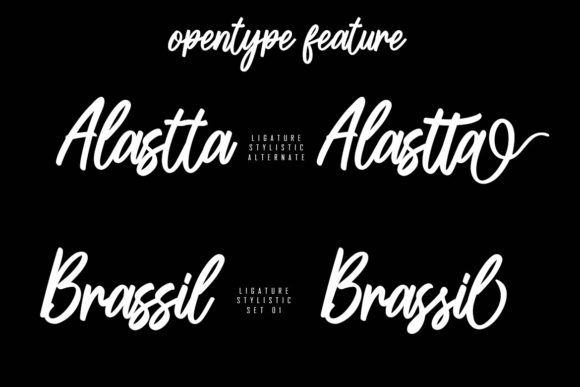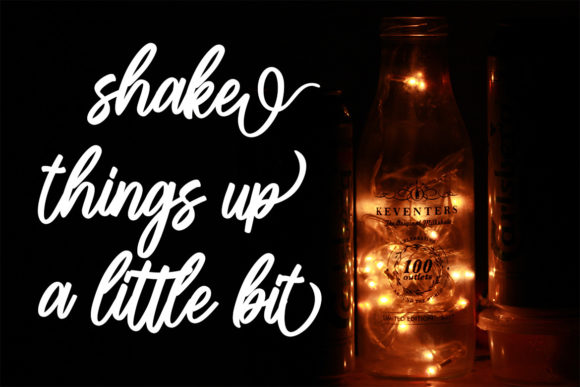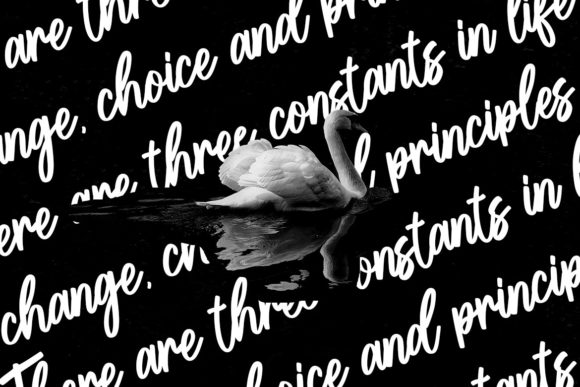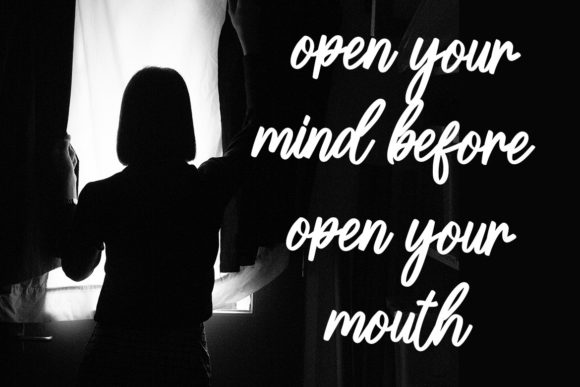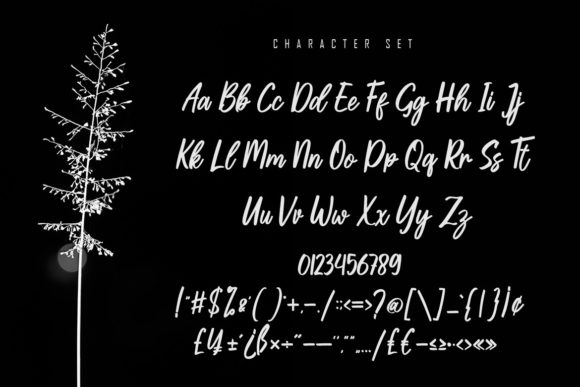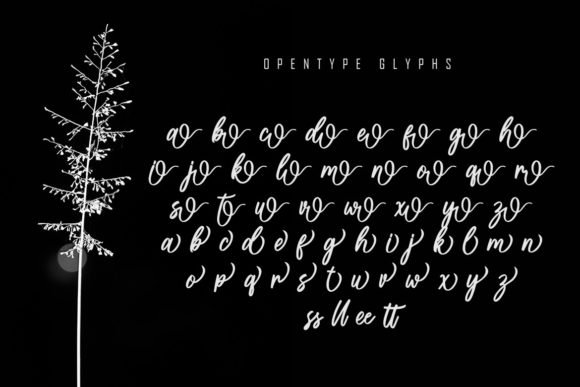
Bollifia Script Font: Elevate Your Designs with Elegance
Are you on the hunt for a font that exudes elegance and sophistication? Look no further than the Bollifia Script Font. This beautiful, flowing handwritten font is designed to add a touch of refinement to your favorite projects. With its incredibly distinct and timeless style, Bollifia Script is sure to capture your heart and inspire your creativity.
The Characteristics of Bollifia Script Font
Bollifia Script is a carefully crafted font that boasts a range of characteristics that set it apart from other fonts. Its elegant touch is evident in every curve and line, making it perfect for designs that require a level of sophistication. The font’s flowing script style is ideal for creating beautiful, eye-catching text that draws the reader in.
Why Choose Bollifia Script Font?
So, why should you choose Bollifia Script Font for your next project? Here are just a few reasons why this font stands out:
- Elegant and Refined: Bollifia Script Font has an undeniable air of elegance, making it perfect for designs that require a level of sophistication.
- Unique and Distinctive: The font’s unique style sets it apart from other fonts, ensuring that your designs will stand out from the crowd.
- Timeless Appeal: Bollifia Script Font has a timeless quality that ensures it will remain relevant for years to come.
- Versatile: This font is perfect for a wide range of projects, from wedding invitations and branding materials to packaging and more.
Using Bollifia Script Font in Your Designs
Using Bollifia Script Font in your designs is easy. Here are a few tips to get you started:
- Pair it with a Sans-Serif Font: Pairing Bollifia Script Font with a sans-serif font creates a beautiful contrast that adds visual interest to your designs.
- Use it for Headings and Titles: Bollifia Script Font is perfect for headings and titles, where its elegant style can really shine.
Bollifia Script Font in the World of Design
Bollifia Script Font is a versatile font that can be used in a wide range of design applications. Here are a few examples of how this font can be used:
- Wedding Invitations: Bollifia Script Font is perfect for wedding invitations, where its elegant style can add a touch of romance and sophistication.
- Branding and Packaging: This font is also ideal for branding and packaging, where its unique style can help to create a lasting impression.
- Stationery and Greeting Cards: Bollifia Script Font is a great choice for stationery and greeting cards, where its elegant style can add a personal touch.
In conclusion, Bollifia Script Font is a beautiful, elegant font that is perfect for designers and crafters looking to add a touch of sophistication to their projects. With its unique and distinctive style, timeless appeal, and versatility, this font is sure to become a favorite in your design arsenal. So why not give Bollifia Script Font a try today and see the difference it can make in your designs?